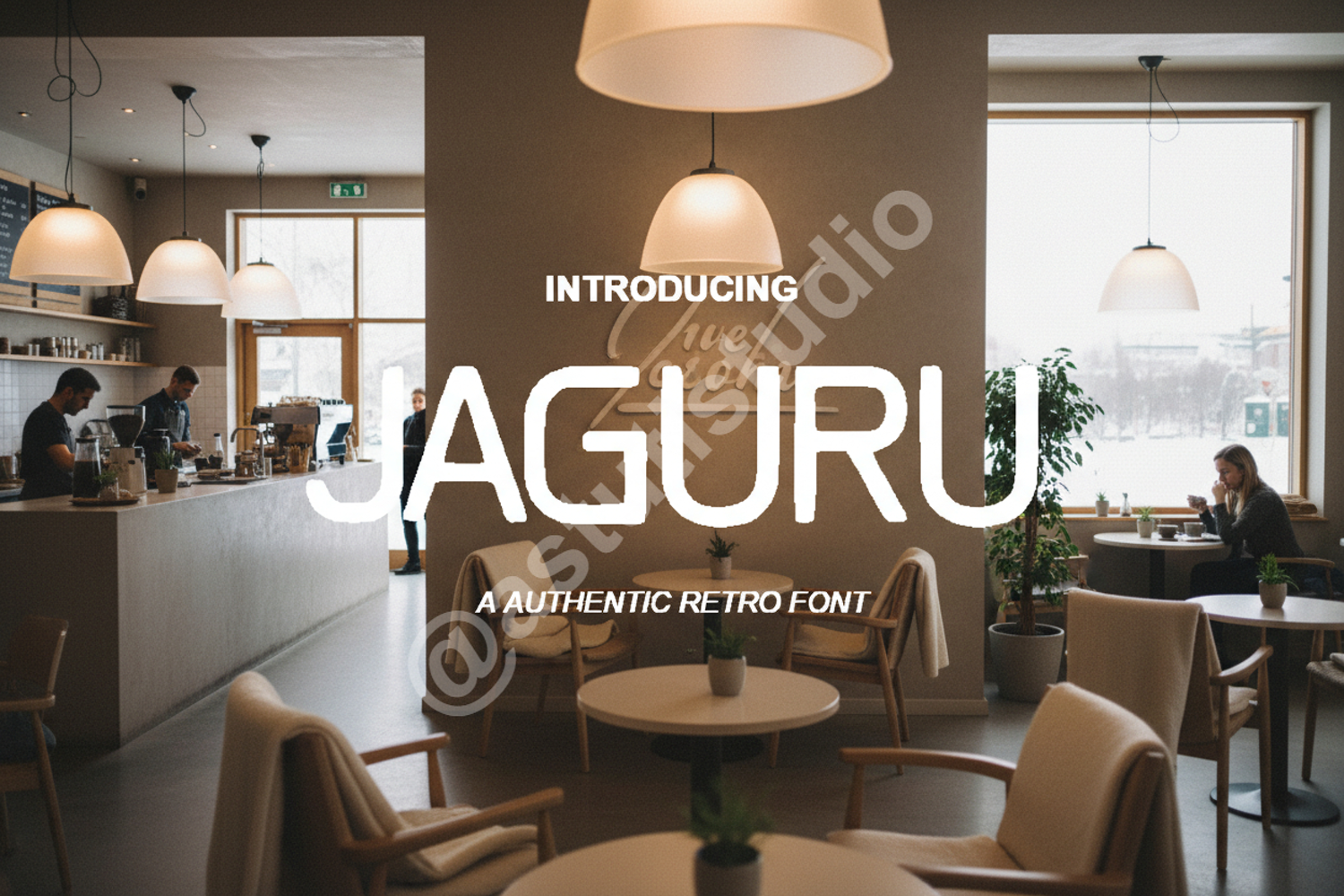
Jaguru | Modern Bold Display Serif
Jaguru
Jaguru is a premium display serif font that strikes the perfect balance between modern sophistication and bold personality. Crafted with meticulous attention to detail, Jaguru features sharp serifs and unique character shapes designed to make your typography stand out. Whether you are working on a high-end luxury project or a contemporary editorial layout, this font provides the professional edge your designs deserve.
- Comprehensive set of Uppercase and Lowercase letters
- Numbers and Punctuation
- Stylistic Alternates and Ligatures
- Multi-language Support